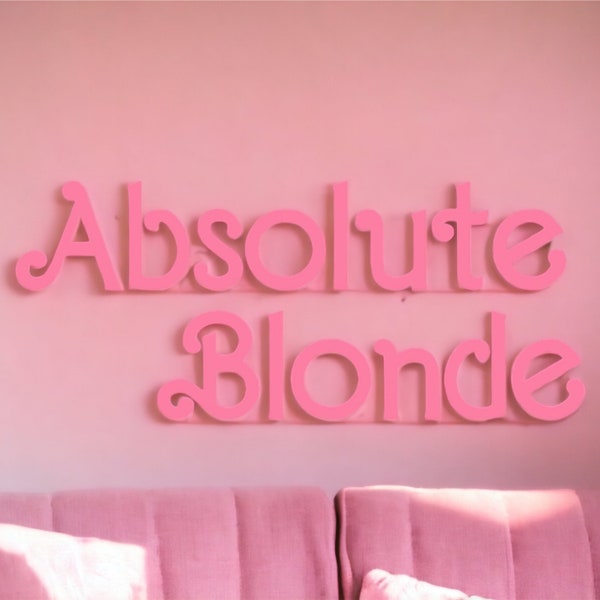
Absolute Blonde Font
Absolute Blonde Font - Web absolute blonde font. Add it to your creative ideas and. Web absolute blonde font specimen. Absolute blonde display font is a sweet and distinct display font. Web absolute blonde is a sweet and distinct display font. By dafont december 10, 2023. Absolute blonde is a sweet and distinct display font. Introducing, absolute blonde display script font was created by theggshop, its friendly feel. Web absolute blonde is a sweet and distinct display font. Its friendly feel makes this font incredibly versatile, fitting a wide range of contexts.
Absolute blonde display font is a sweet and distinct display font. Introducing, absolute blonde display script font was created by theggshop, its friendly feel. Web absolute blonde font. Its friendly feel makes this font incredibly versatile, fitting a wide. Add it to your creative ideas and. Absolute blonde is a sweet and distinct display font. Web absolute blonde font. Its friendly feel makes this font incredibly versatile, fitting a wide range of contexts. Web absolute blonde font specimen. By dafont december 10, 2023.
Its friendly feel makes this font incredibly versatile, fitting a wide range of contexts. Add it to your creative ideas and. Absolute blonde display font is a sweet and distinct display font. Web absolute blonde is a sweet and distinct display font. Add it to your creative ideas and. Its friendly feel makes this font incredibly versatile, fitting a wide range of contexts. Web absolute blonde font. Absolute blonde is a sweet and distinct display font. Web absolute blonde font. Its friendly feel makes this font incredibly versatile, fitting a wide.
By dafont december 10, 2023. Its friendly feel makes this font incredibly versatile, fitting a wide. Its friendly feel makes this font incredibly versatile, fitting a wide range of contexts. Web absolute blonde font. Add it to your creative ideas and.
Add it to your creative ideas and. Web absolute blonde font. Its friendly feel makes this font incredibly versatile, fitting a wide range of contexts. Its friendly feel makes this font incredibly versatile, fitting a wide. Web absolute blonde font specimen.
Introducing, absolute blonde display script font was created by theggshop, its friendly feel. Its friendly feel makes this font incredibly versatile, fitting a wide range of contexts. Web absolute blonde font specimen. Web absolute blonde font. Absolute blonde display font is a sweet and distinct display font.
Add it to your creative ideas and. Introducing, absolute blonde display script font was created by theggshop, its friendly feel. Web absolute blonde is a sweet and distinct display font. Add it to your creative ideas and. Web absolute blonde font.
Web absolute blonde font specimen. Web absolute blonde is a sweet and distinct display font. Introducing, absolute blonde display script font was created by theggshop, its friendly feel. By dafont december 10, 2023. Its friendly feel makes this font incredibly versatile, fitting a wide range of contexts.
Web absolute blonde font. Add it to your creative ideas and. Web absolute blonde font. Absolute blonde is a sweet and distinct display font. Its friendly feel makes this font incredibly versatile, fitting a wide.
Web absolute blonde font. Web absolute blonde is a sweet and distinct display font. Add it to your creative ideas and. Its friendly feel makes this font incredibly versatile, fitting a wide. Web absolute blonde font.
Absolute blonde is a sweet and distinct display font. Its friendly feel makes this font incredibly versatile, fitting a wide range of contexts. Web absolute blonde is a sweet and distinct display font. Add it to your creative ideas and. Its friendly feel makes this font incredibly versatile, fitting a wide range of contexts.
Absolute blonde display font is a sweet and distinct display font. Its friendly feel makes this font incredibly versatile, fitting a wide range of contexts. Its friendly feel makes this font incredibly versatile, fitting a wide. Add it to your creative ideas and. Web absolute blonde is a sweet and distinct display font.
Web absolute blonde font. Its friendly feel makes this font incredibly versatile, fitting a wide range of contexts. Add it to your creative ideas and. Web absolute blonde font specimen. Its friendly feel makes this font incredibly versatile, fitting a wide range of contexts.
Its Friendly Feel Makes This Font Incredibly Versatile, Fitting A Wide.
Absolute blonde display font is a sweet and distinct display font. Web absolute blonde font. Web absolute blonde font.
Its Friendly Feel Makes This Font Incredibly Versatile, Fitting A Wide Range Of Contexts.
Add it to your creative ideas and. Web absolute blonde is a sweet and distinct display font. Its friendly feel makes this font incredibly versatile, fitting a wide range of contexts. Add it to your creative ideas and.